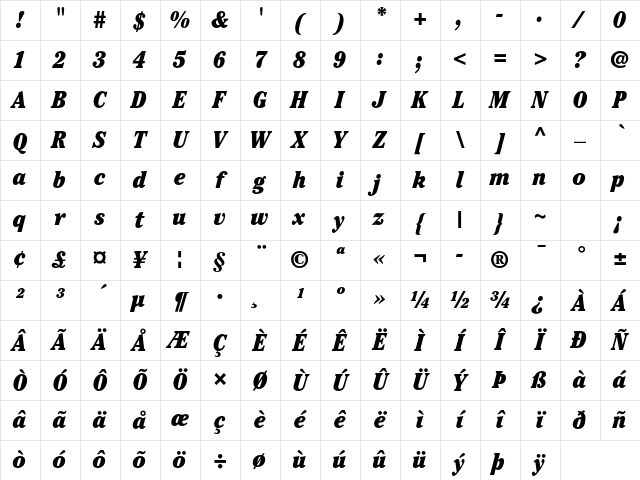
ITC Cheltenham Std Ultra Condensed Italic
Style: Ultra Condensed Italic
Designer: Tony Stan
Design Context for ITC Cheltenham Std
ITC Cheltenham Std is a composed and adaptable typeface that performs quietly and consistently across a wide range of design contexts. The slanted form adds forward momentum and visual energy. Its narrow stance lets it pack a punch even in space-constrained designs.
Pro Tip: Use ITC Cheltenham Std for emphasis, pull quotes, and subheadings where its slanted energy can add rhythm to the layout.